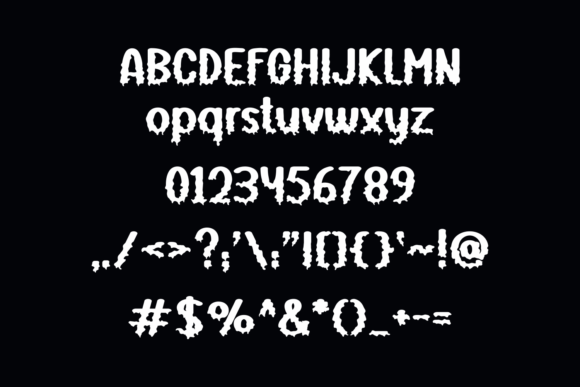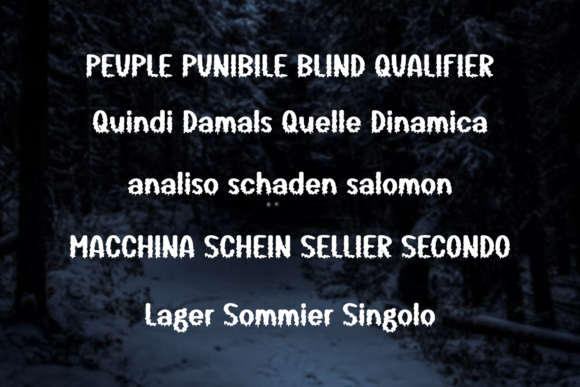
Introduction to Magoro Font
Have you ever found yourself staring at a blank canvas, waiting for inspiration to strike? You know, that moment when the perfect font can make all the difference in elevating your creative project from good to great? For designers, this is often the most critical aspect of bringing their vision to life.
Enter the Magoro Font, a cool and unique display font that’s about to become your new go-to design resource. With its neatly crafted and highly detailed design, this font has the potential to enhance any creation, whether it’s a logo, a poster, or even a website with a transparent background.
Key Features of Magoro Font
- High-quality design resource for creative projects, suitable for various applications including logos, branding, and typography.
- Unique and stylish design with a transparent background, providing flexibility in layout and composition.
- Includes a wide range of glyphs and characters, making it an ideal choice for multilingual creative projects.
- Designed to be scalable, allowing for easy resizing and customization to suit your specific design needs.
Honest Review: Magoro Font
I recently had the chance to work with the Magoro Font in a creative project, and I’m excited to share my honest thoughts on this design resource. The first thing that caught my eye was the beautiful, high-quality design of the font. It’s perfect for anyone looking for a stylish and elegant touch in their work.
- ⚠️ Limited character set, which may not be ideal for long-form text
Overall, I was impressed with the Magoro Font, and I think it’s a great addition to any designer’s toolkit. It’s perfect for digital projects, and the free download option makes it an attractive choice for those on a budget. With a little creativity, the limitations can be overcome, and the font can be used to great effect in a variety of creative projects.
Magoro Font: A High-Quality Design Resource
To maximize the potential of the Magoro Font, experiment with different font sizes, colors, and combinations. You can also use it to create custom typography and graphics.
The Magoro Font is perfect for a variety of projects, including branding, marketing materials, and creative portfolios. Its high-quality design makes it an excellent choice for any creative endeavor.